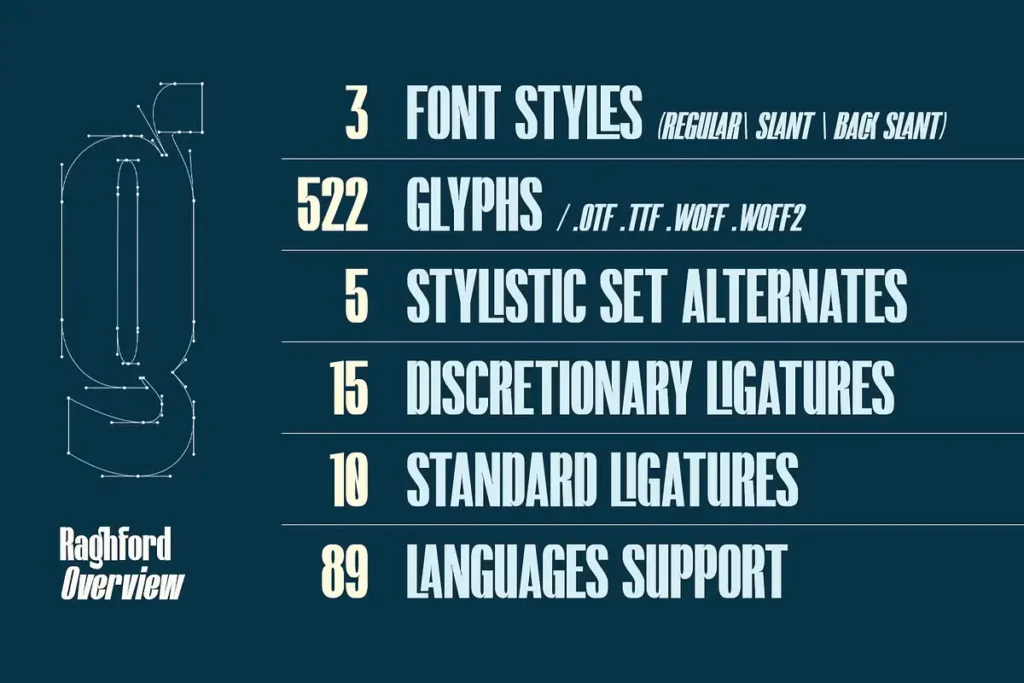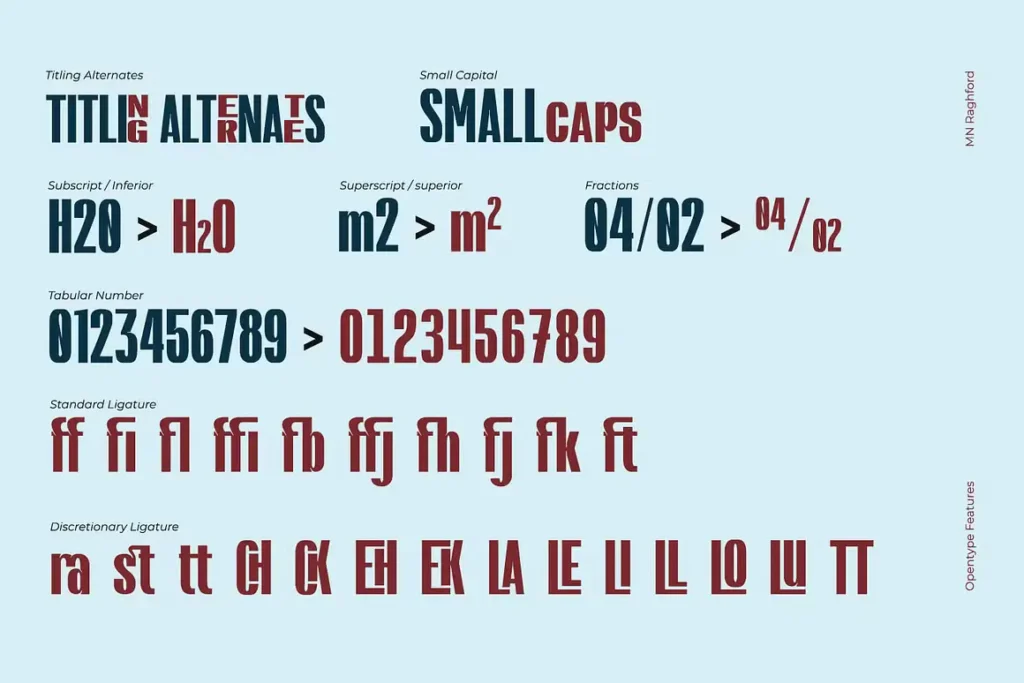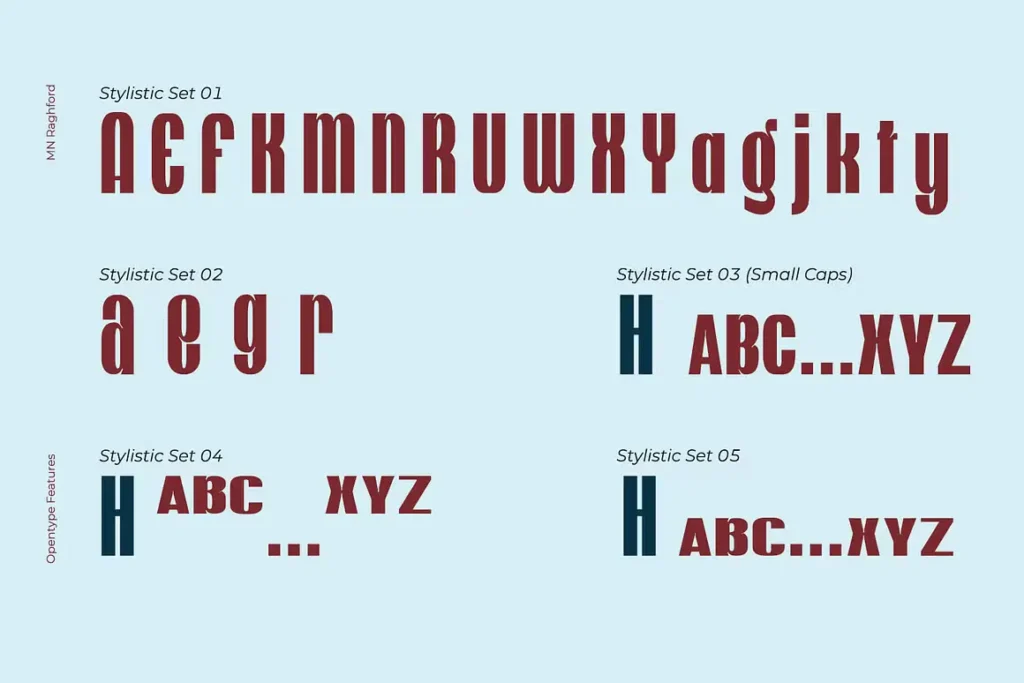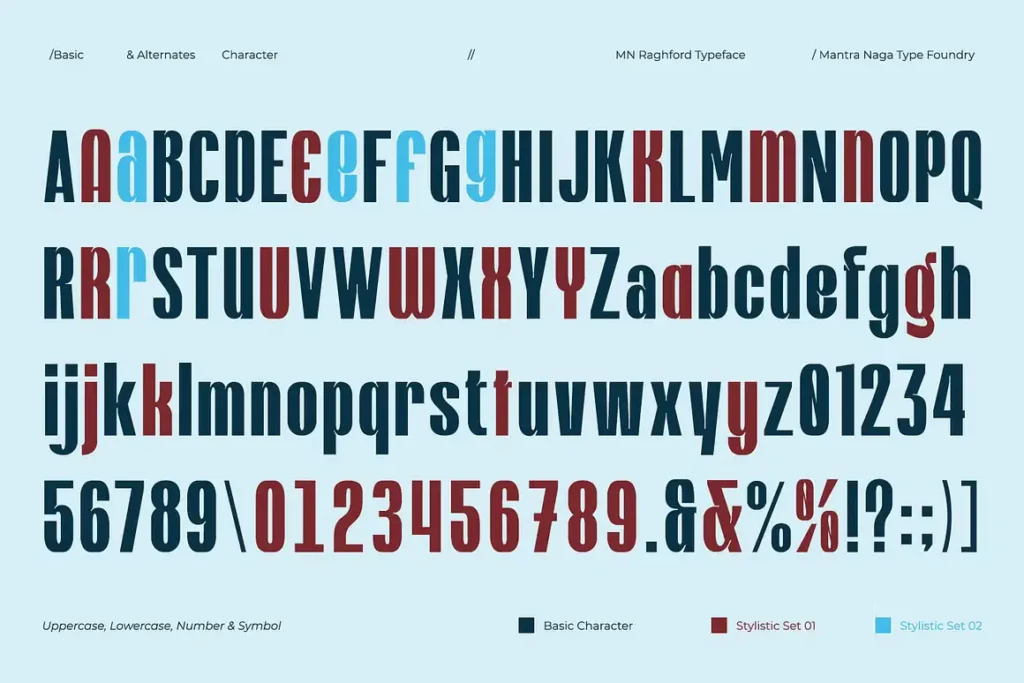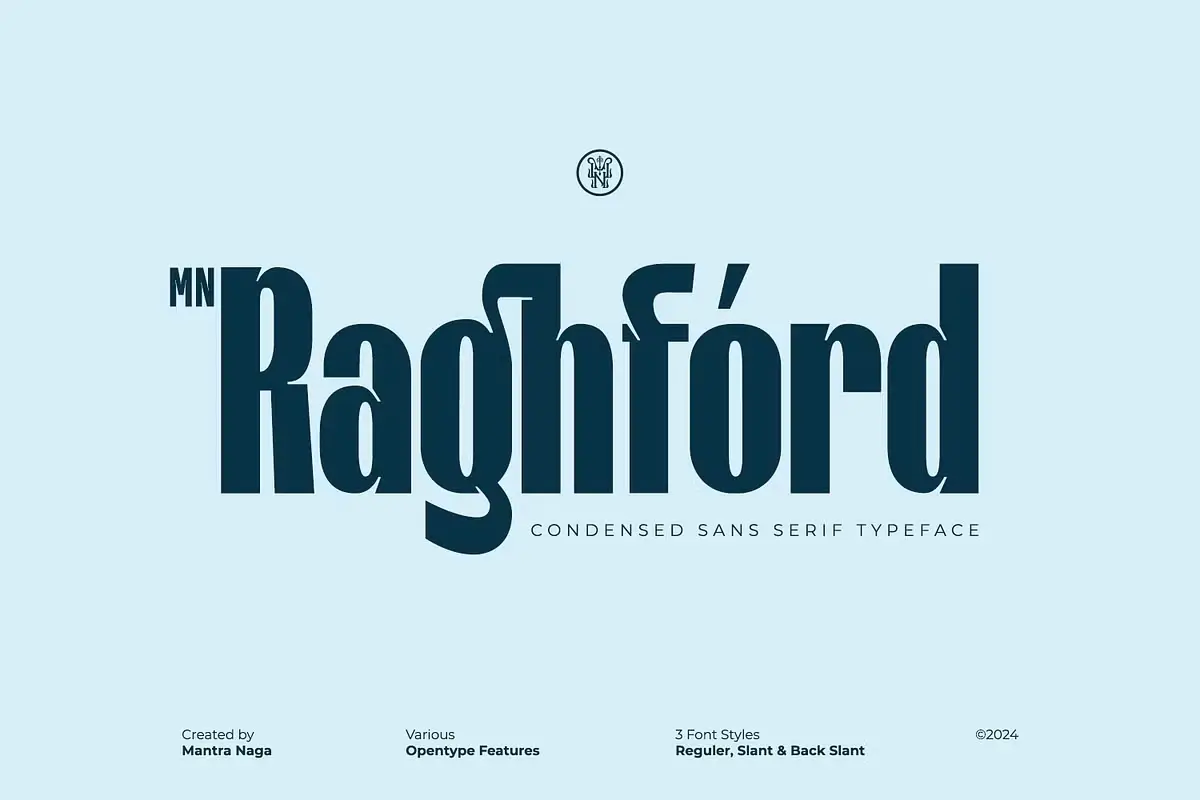
MN Raghford is a bold, modern, and elegant free condensed sans serif font with its unique design and contemporary inktrap details. Combining classic and modern aesthetics, this typeface is perfect for projects requiring a clean, stylish, and distinctive look. Whether for branding, headlines, posters, or digital designs, MN Raghford adds a touch of sophistication and clarity to your typography. It is ideal for those looking for a versatile alphabet that balances elegance with boldness.
MN Raghford Free Condensed Sans Serif Font